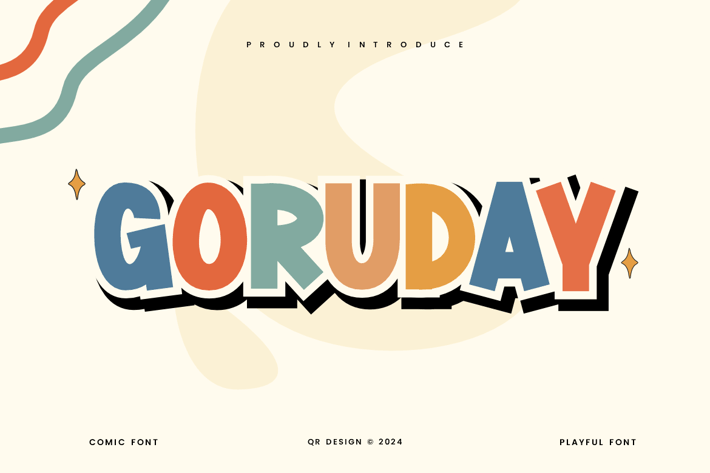
Goruday - Comic & Playful Font
Goruday Font is a playful and authentic display font.
The font is suitable for any branding project like poster, logo, kids, and many more.